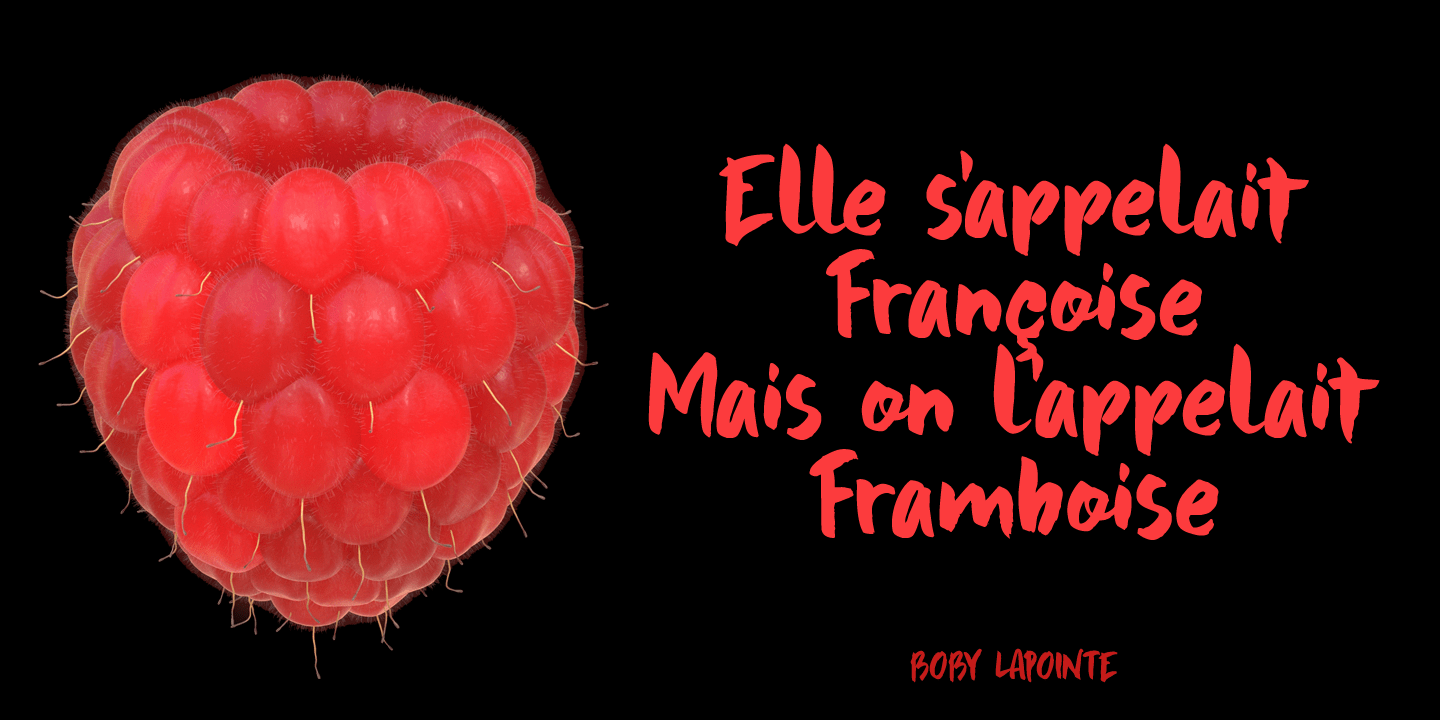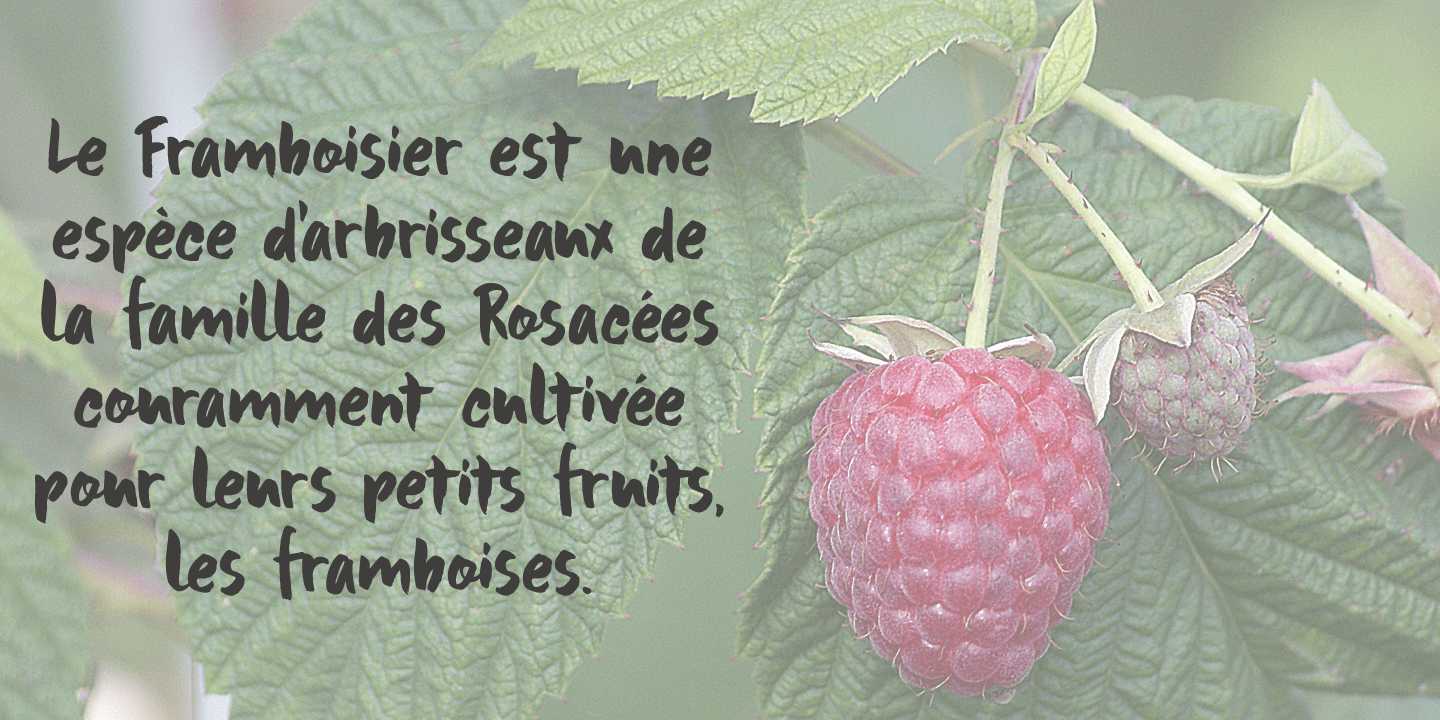
About Framboisier
Framboisier means ?Rasberry Bush? in French. Even though it\’s early spring, I already spotted raspberries at the greengrocers, so I figured a nice raspberry-related name would suit this font just fine. Framboisier is a hand painted script font. It\’s…